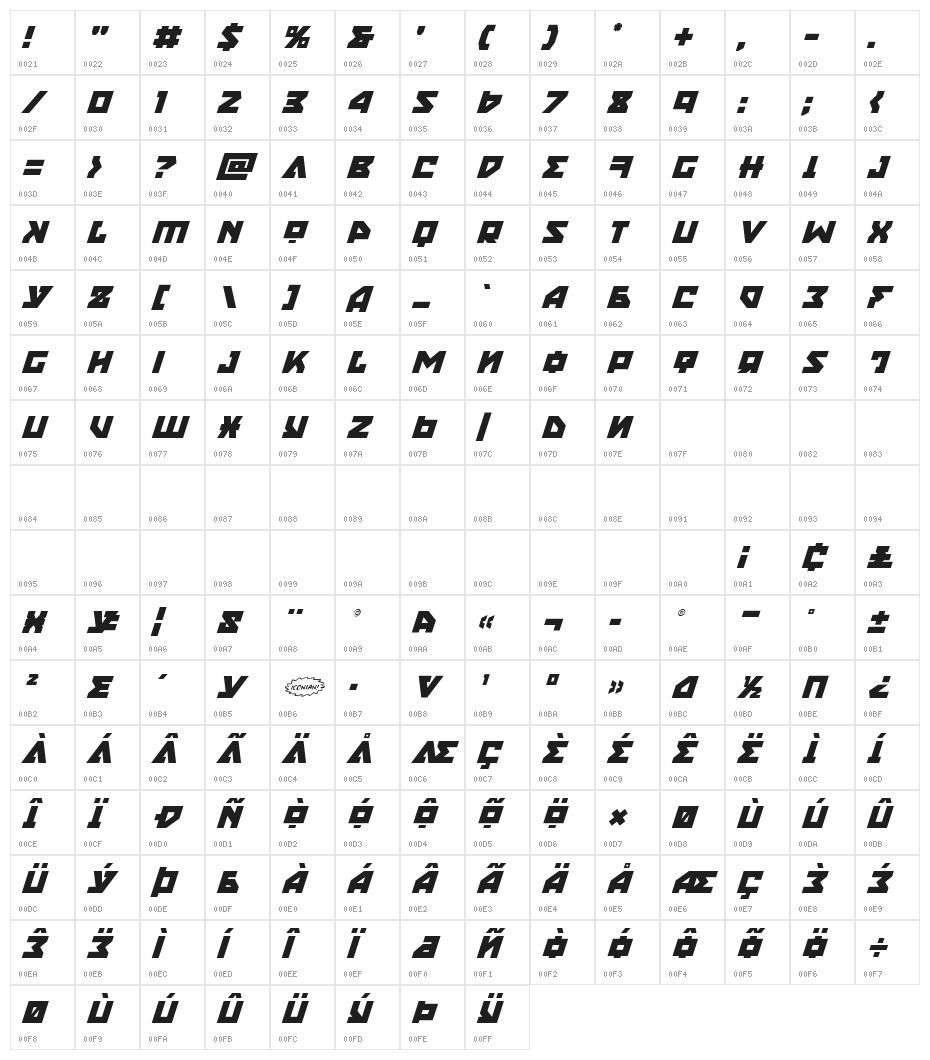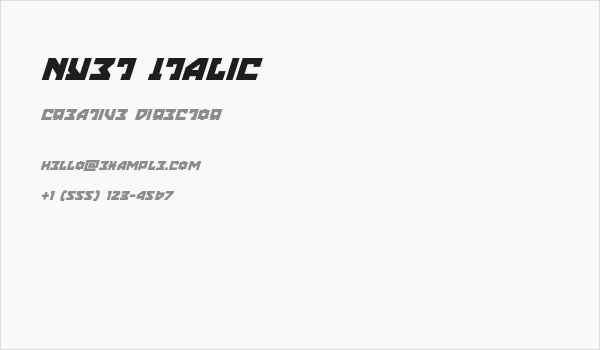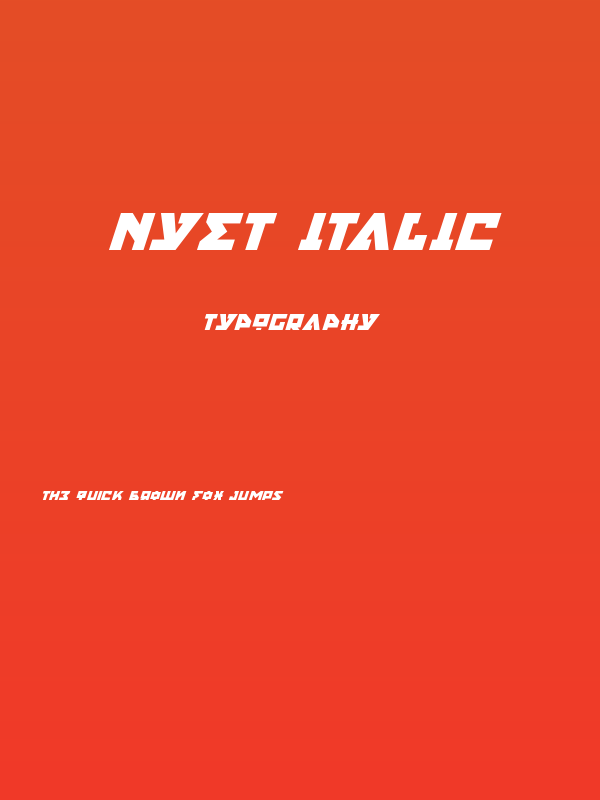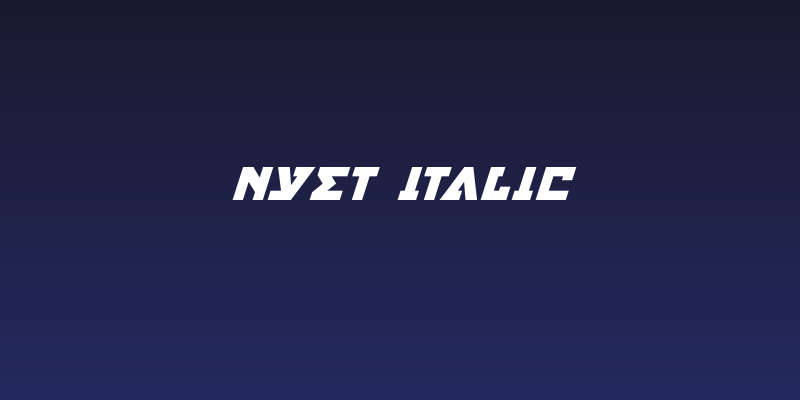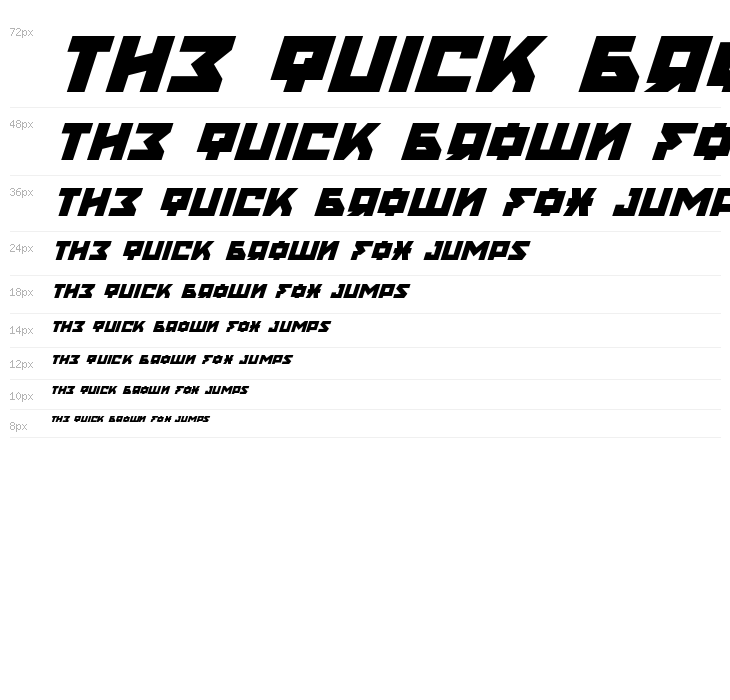
Nyet Italic Font
Nyet Italic Description
This font features a bold and dynamic design with a strong geometric influence. The characters are sharply angled, giving a sense of movement and energy. The uppercase and lowercase letters maintain a consistent style, with thick strokes and a slight forward slant, enhancing the italicized appearance. The numbers and special characters are equally bold, ensuring uniformity across all elements. The overall look is modern and edgy, suitable for projects that require a striking and impactful visual presence.
Proposed ProjectsIdeal for branding, posters, sports team logos, and any project needing a bold, energetic typeface.